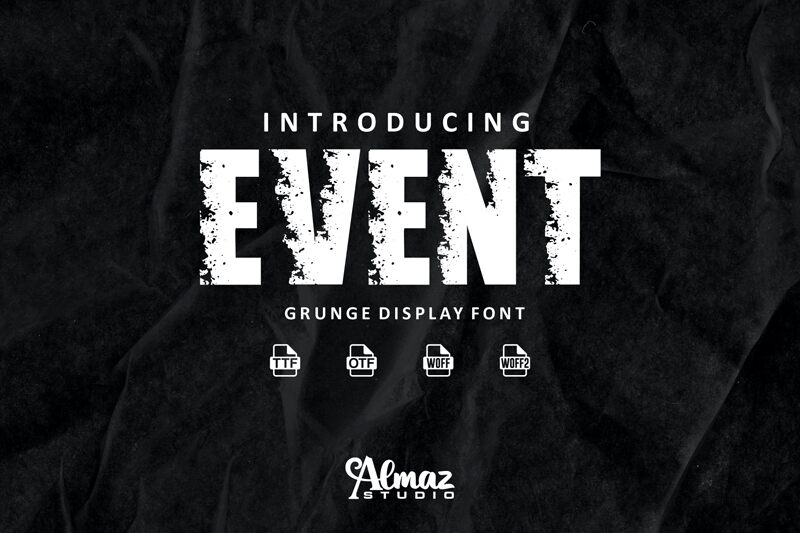
Event_Demo Regular
Event font by Almaz Studio is a bold, condensed design with a gritty aesthetic that combines urban influence and a rustic vibe. The display typeface has a rugged appearance achieved through an eroded effect with distressed textures. The letters have their own distinctive worn-out feel.
The free creative design is ideal for posters, signage, magazine covers, headlines, apparel designs, game interfaces, event branding of all types. Additionally it can perfect work for gaming posters and app interfaces.